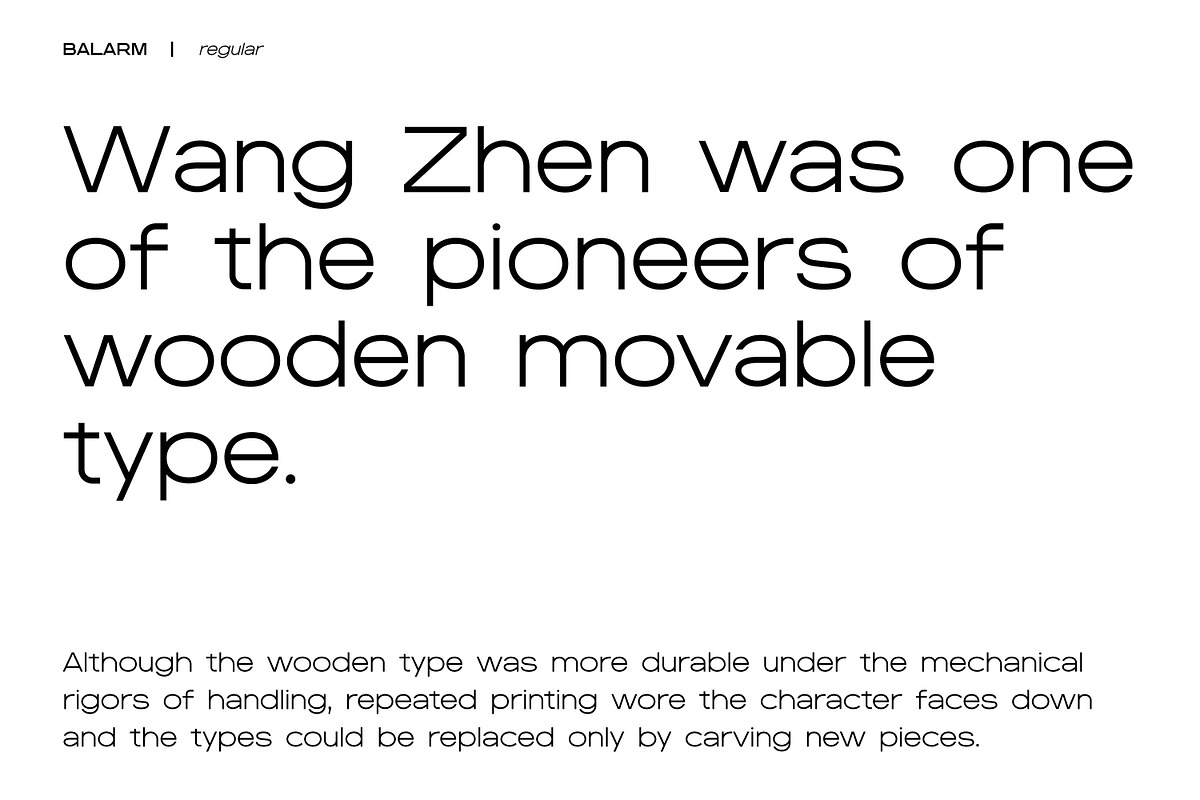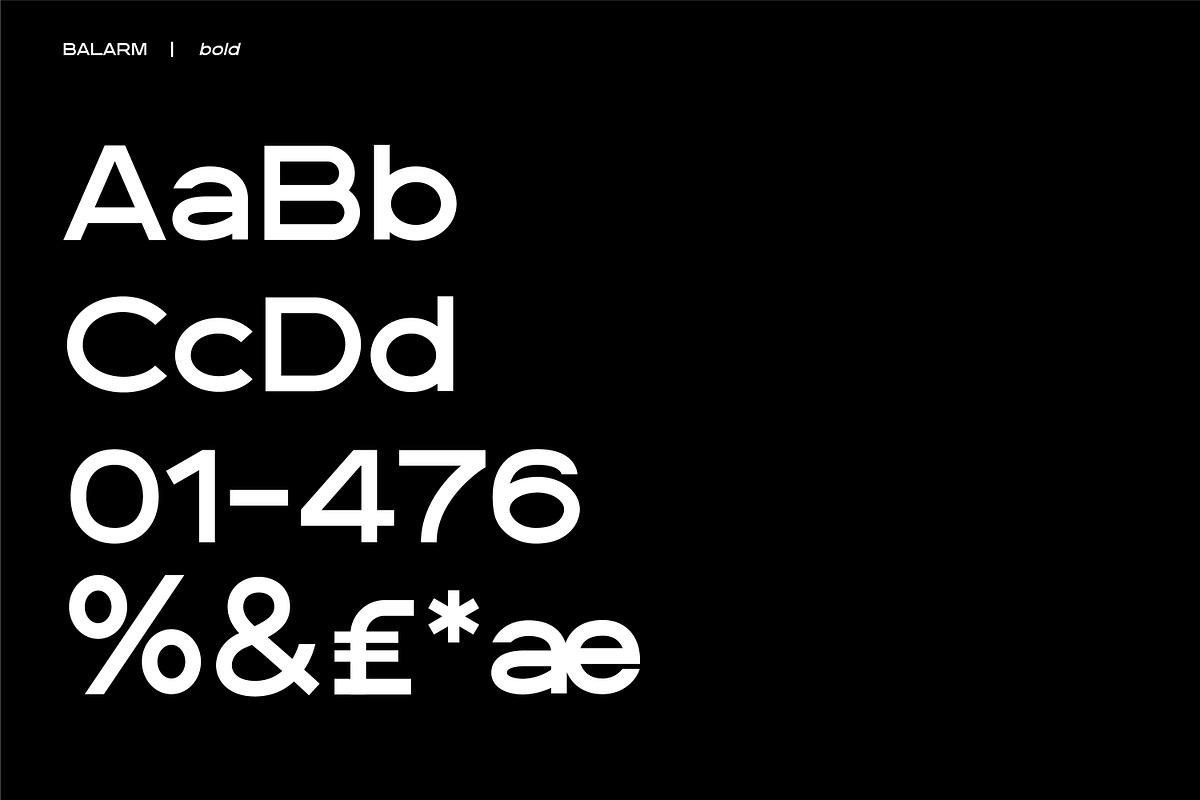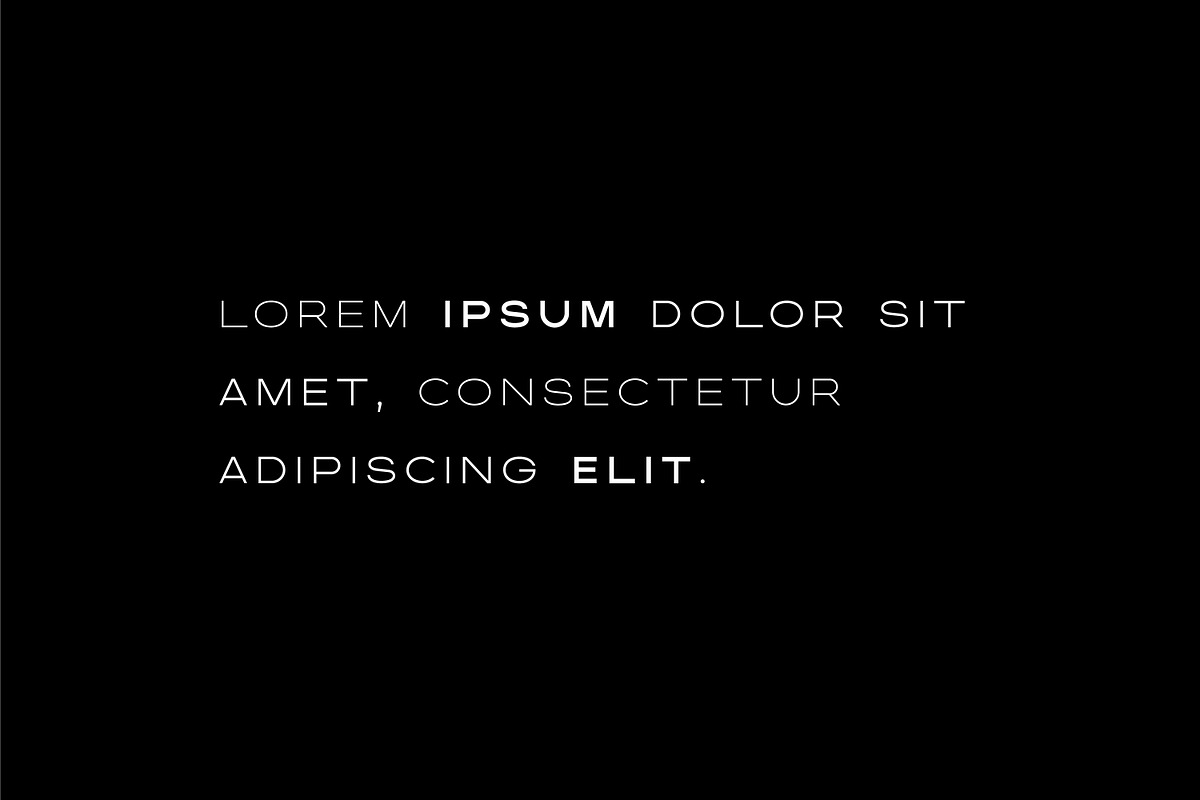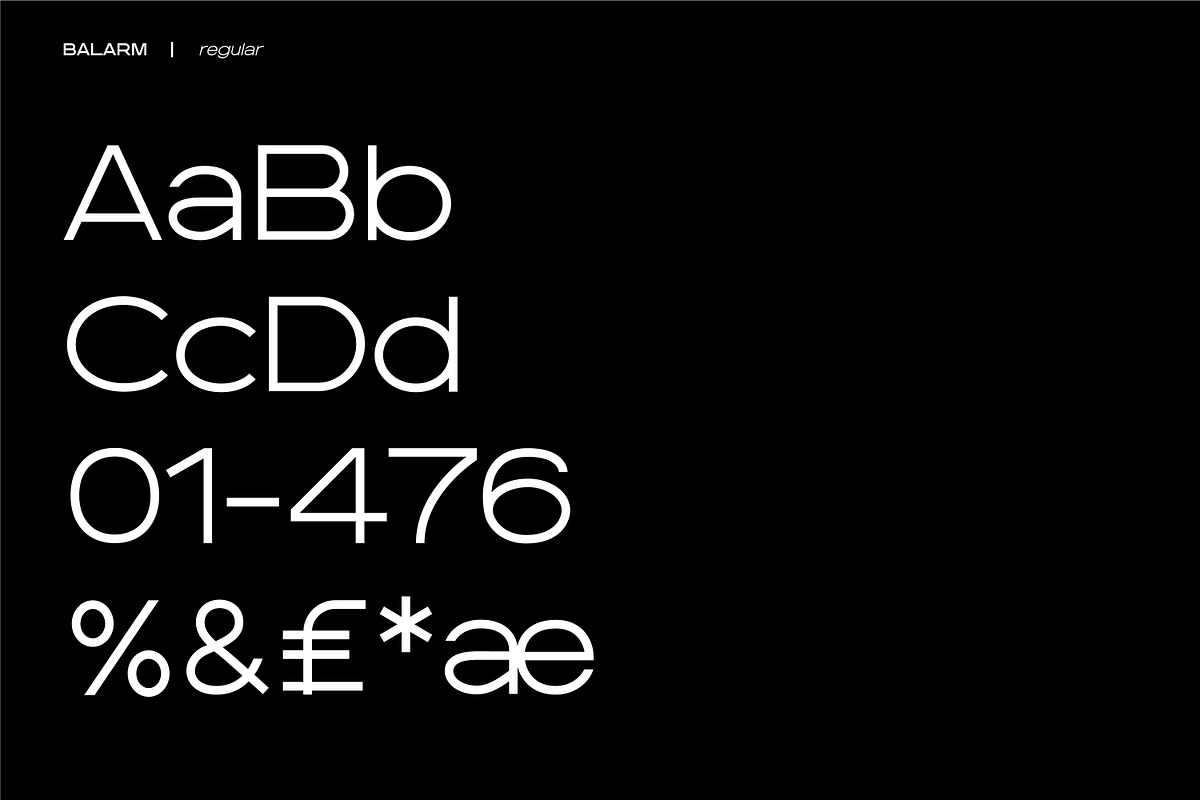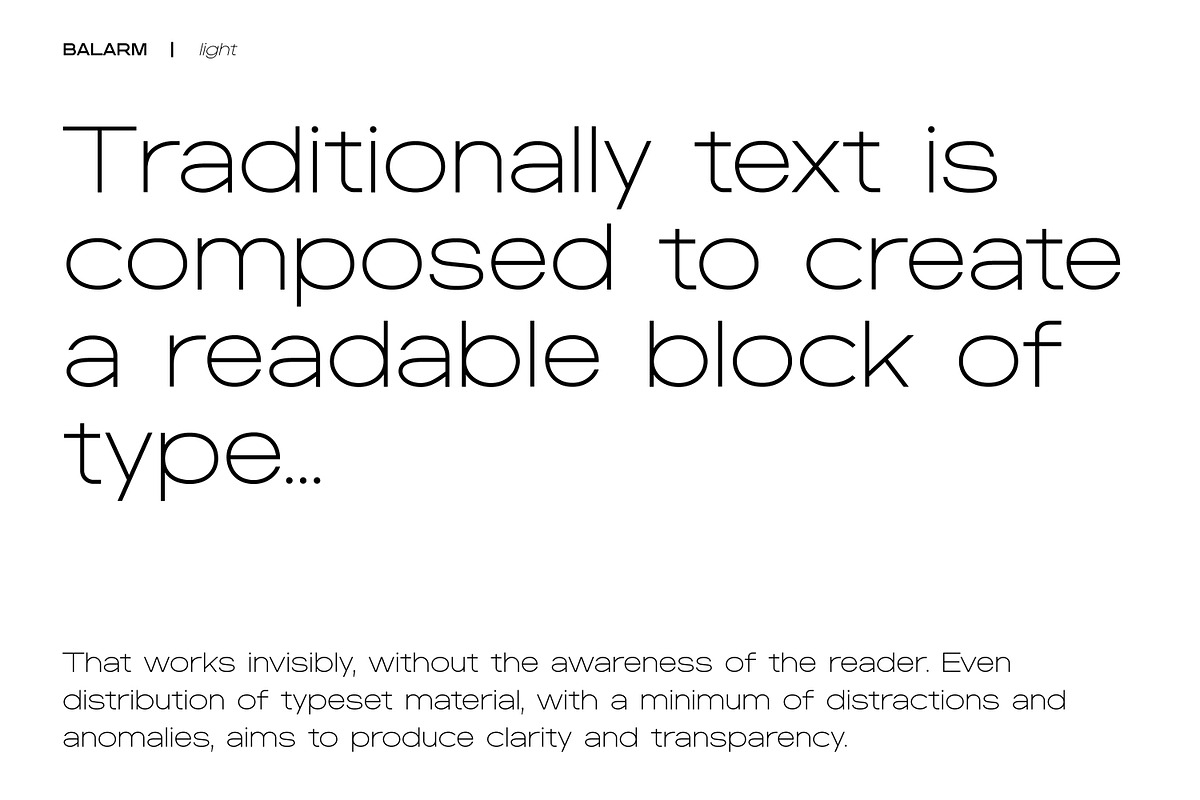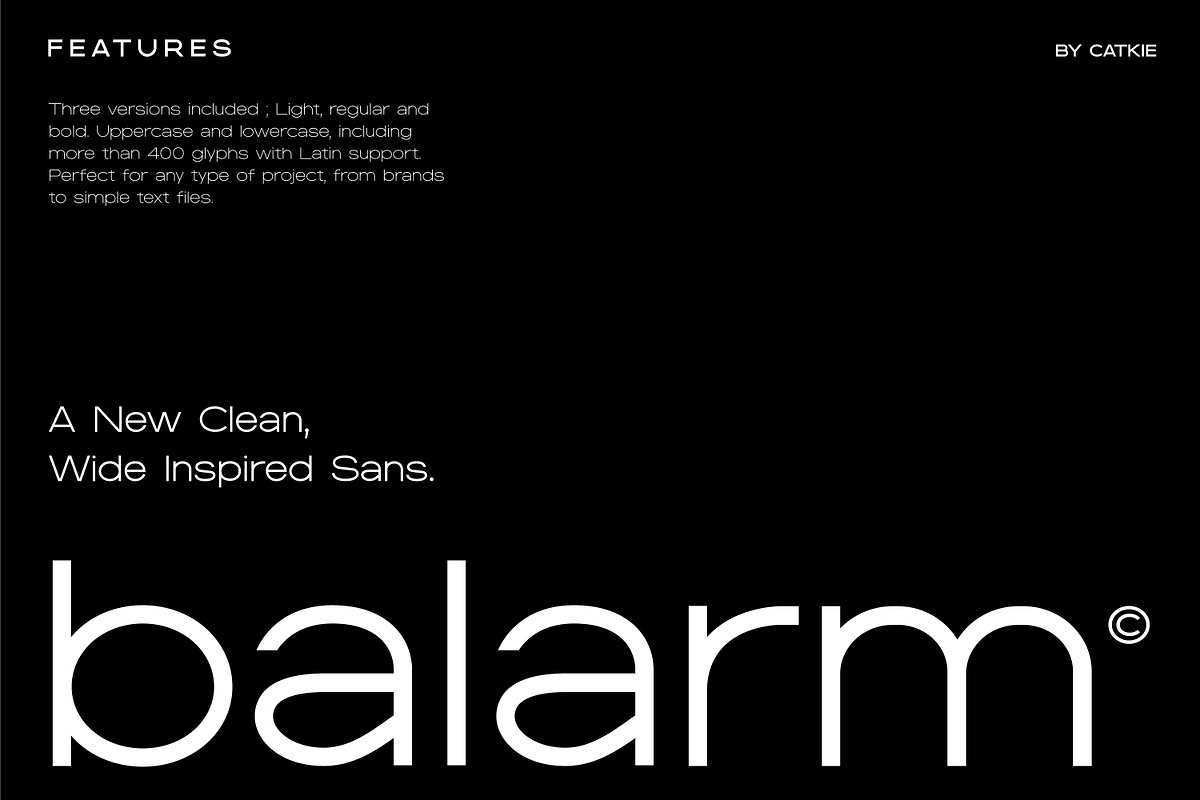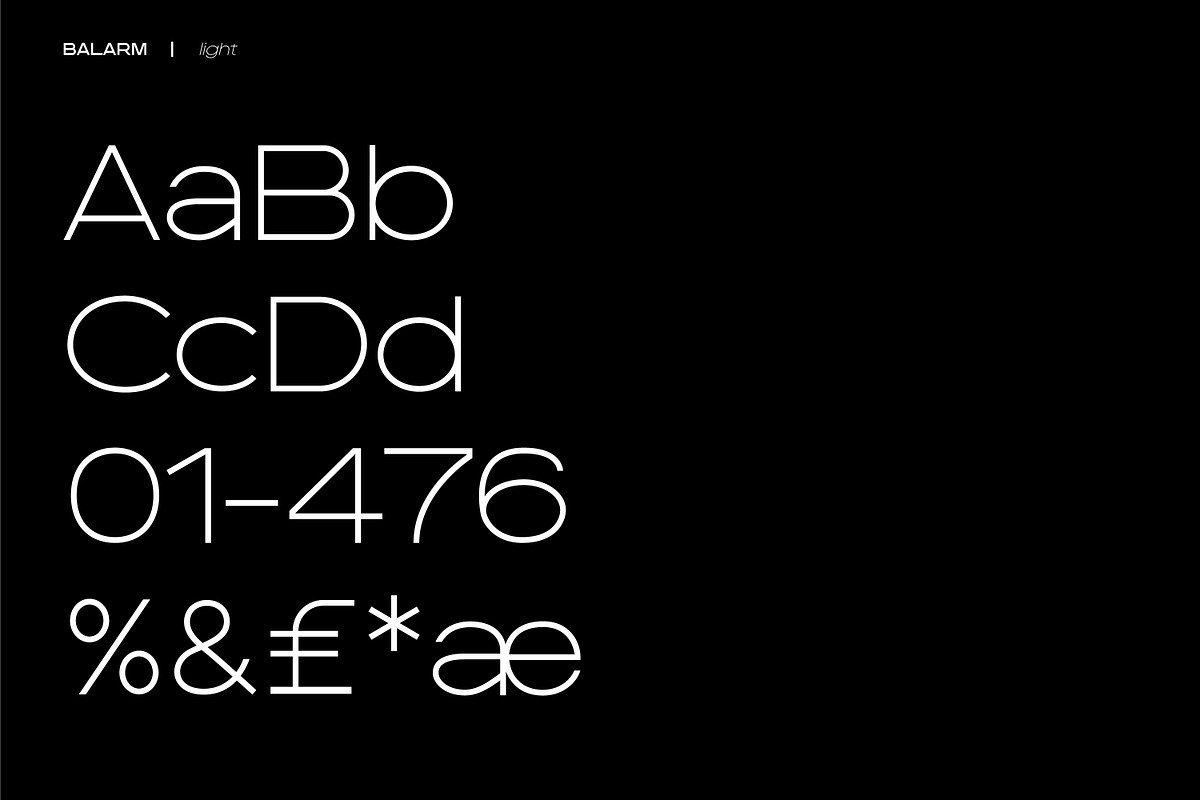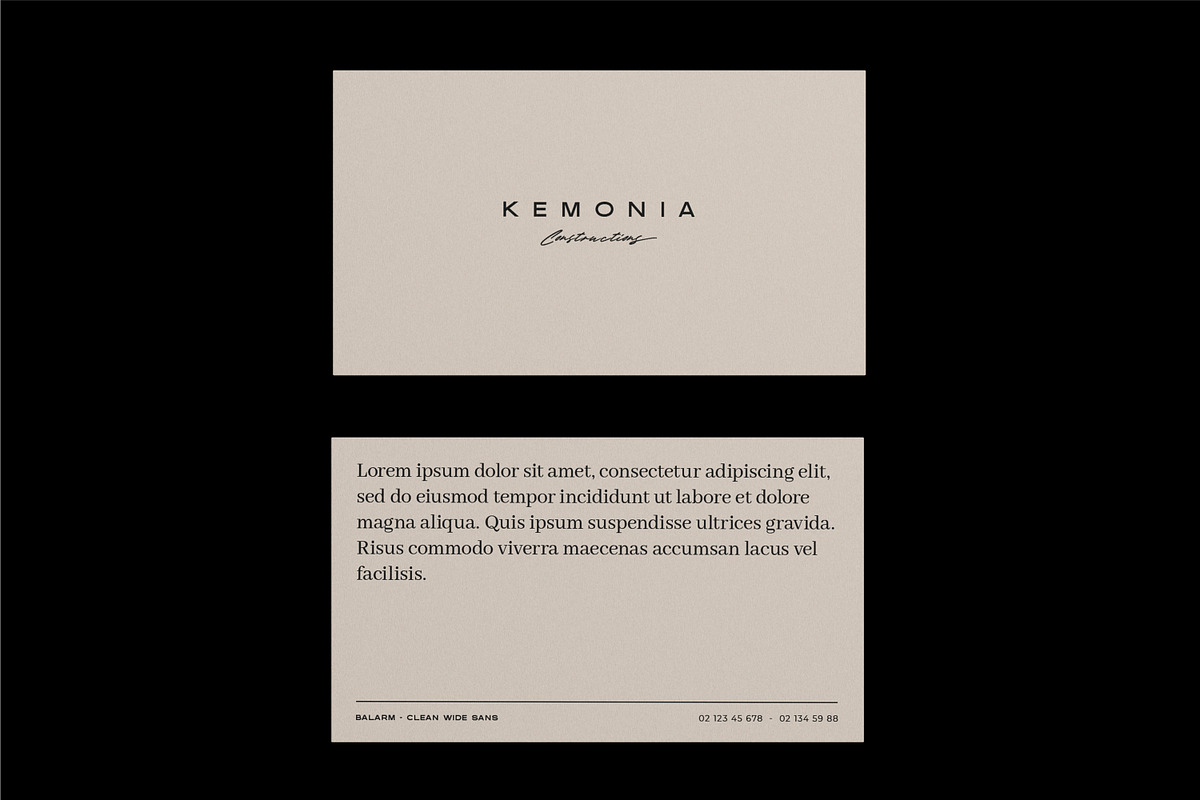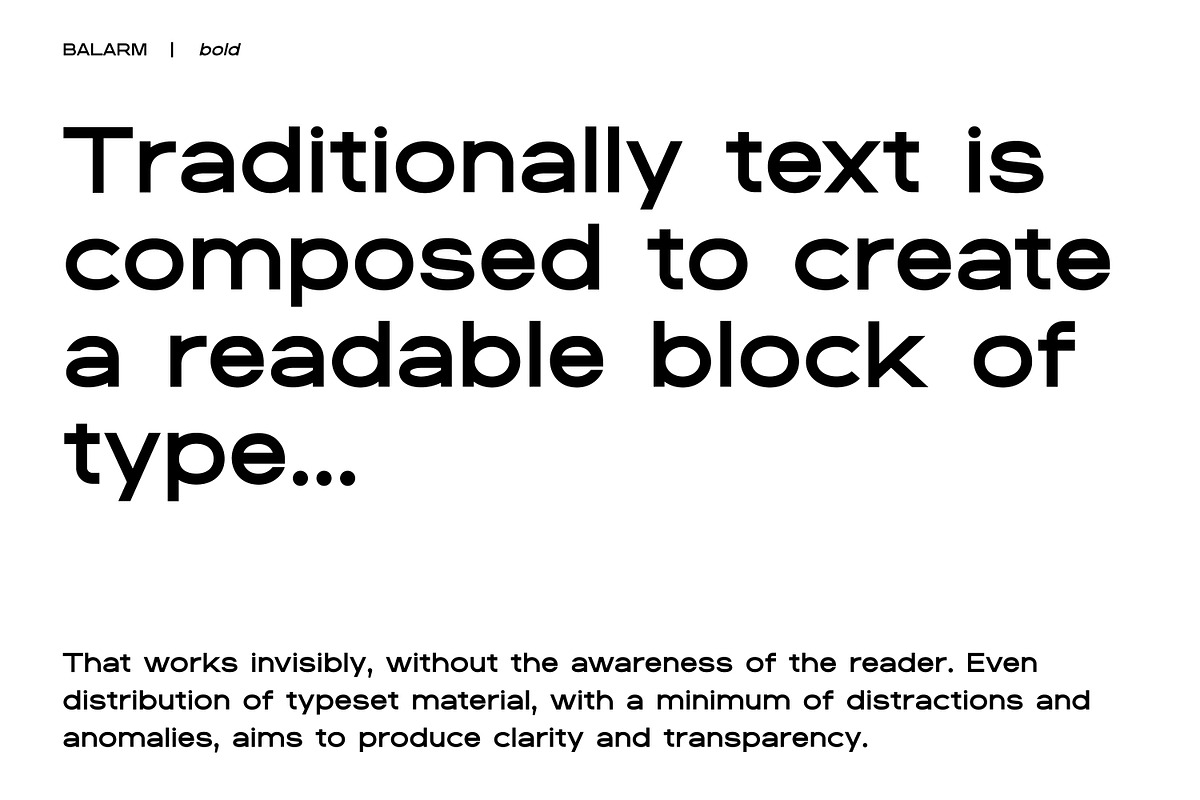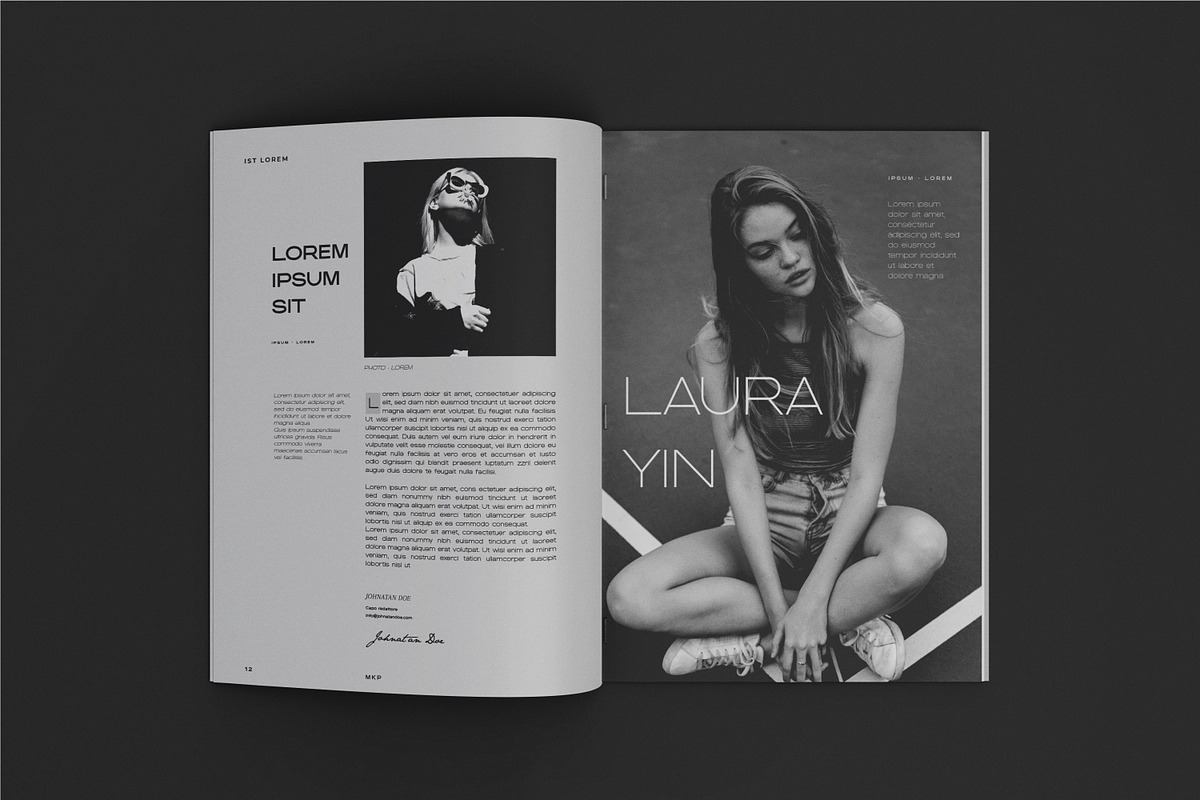
BALARM - a clean, wide sans typeface
Give your welcome to Balarm, a complete set of wide-style sans characters that includes over 400 glyphs and full Latin language support, always updated!
In detail :
- 3 font styles: Light, regular and bold
- 400+ glyphs and full Latin support
- Perfect for any type of project